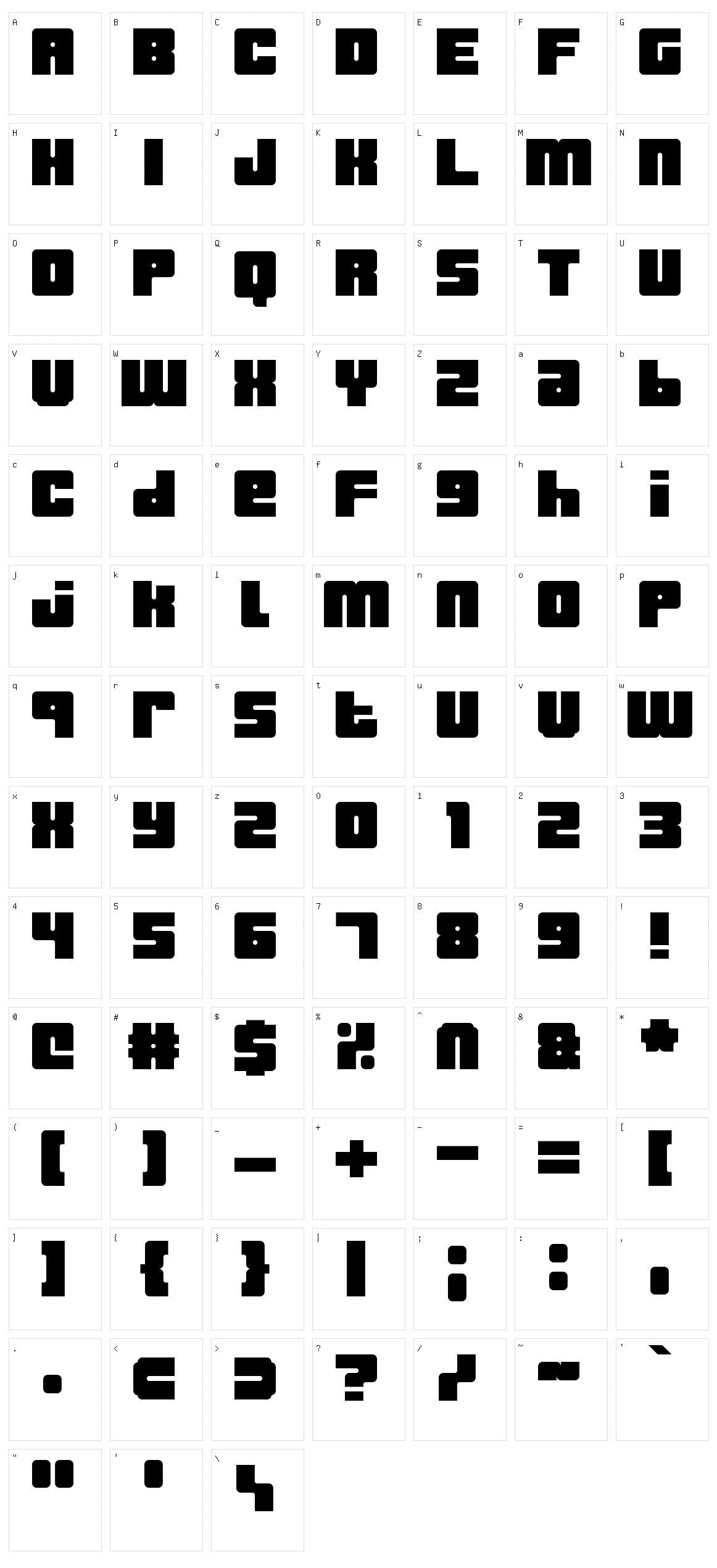
The free font Fizzy Soda is carefully designed by Chequered Ink, showcasing a thoughtful balance of creativity and usability and falls under the Sans serif font style. When you download the ZIP file, it contains only 9.16 KB of font files, making it lightweight and quick to download. Please review the license details below to understand permitted usage and distribution rights. If license information is not available, we recommend using this font for personal projects only or contacting the author directly for commercial usage permissions.